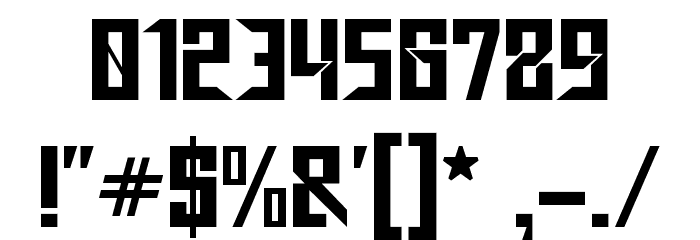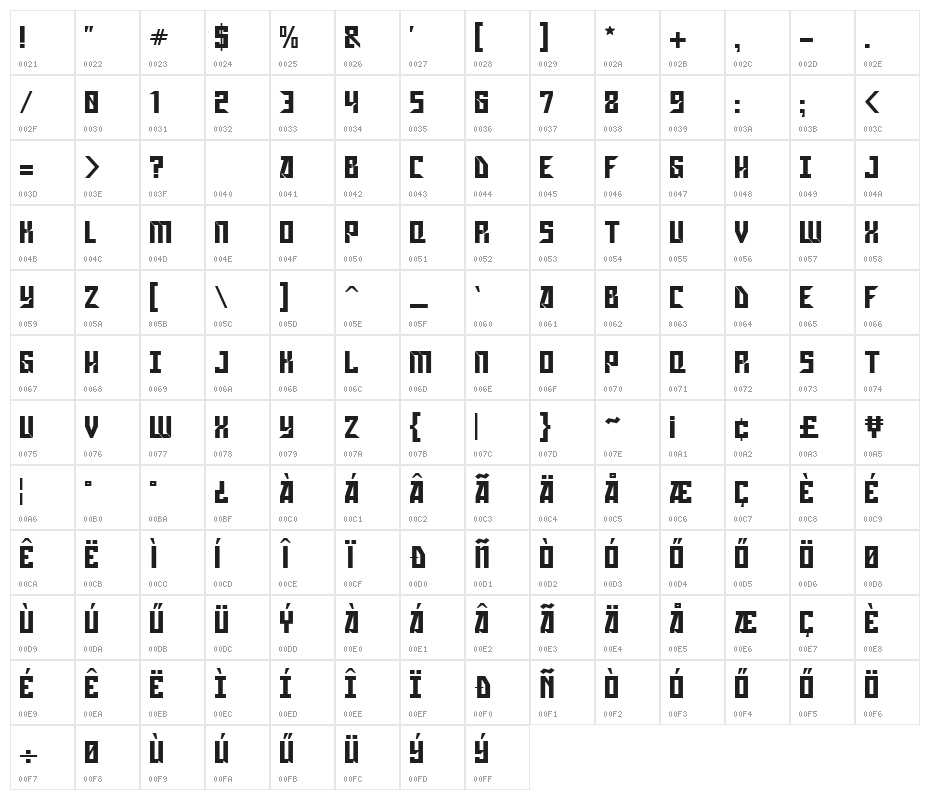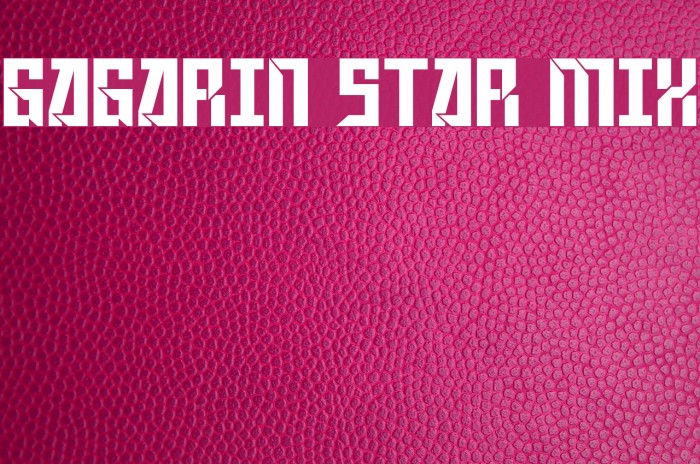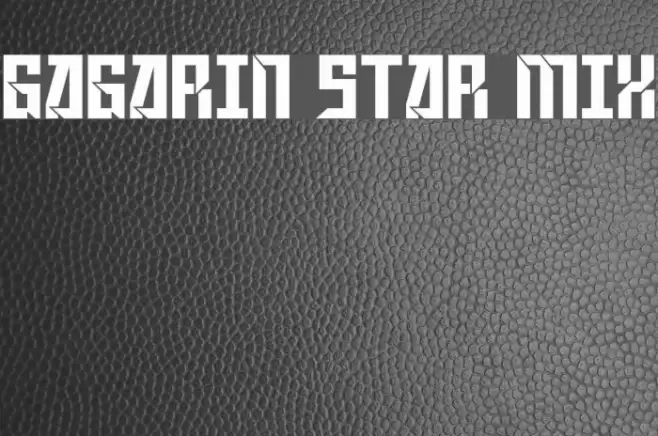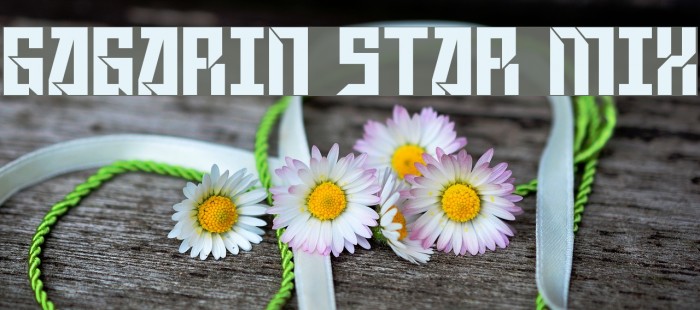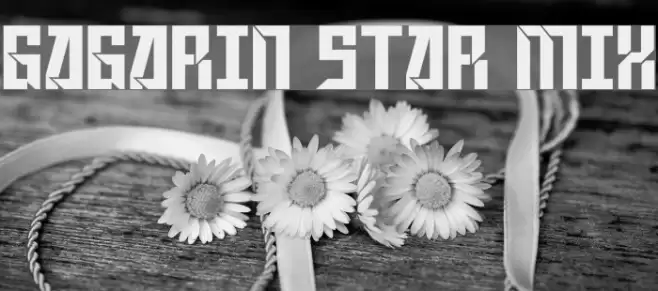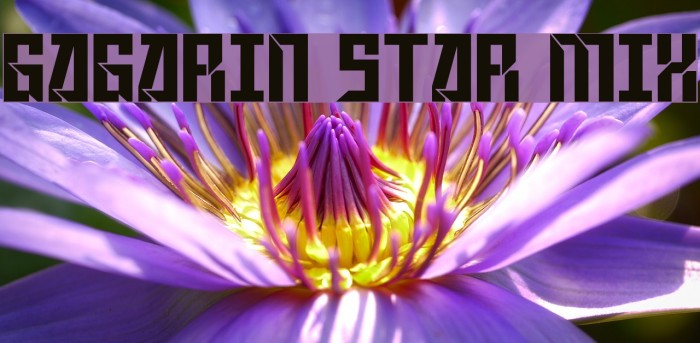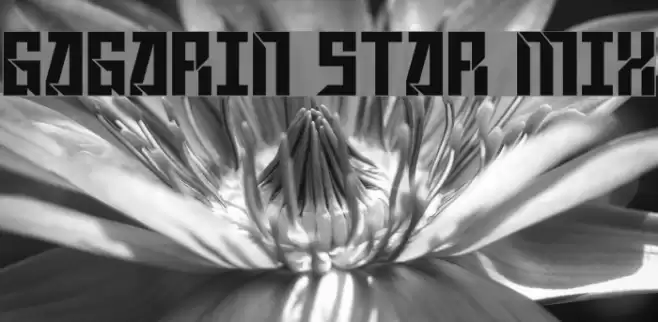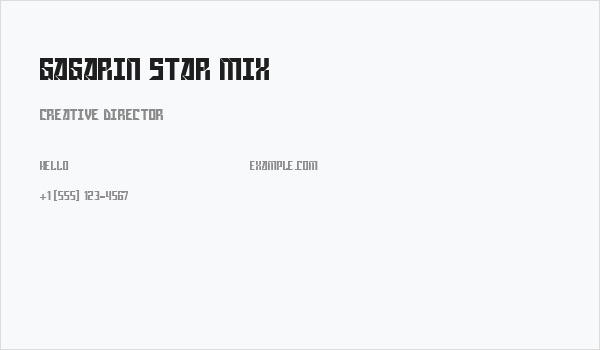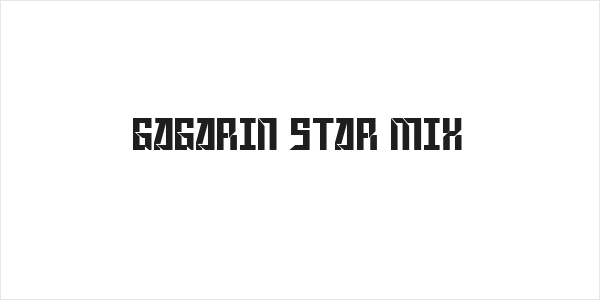
Gagarin Star Mix Font
Gagarin Star Mix Description
This font features a bold, geometric design with sharp angles and a futuristic aesthetic. The characters are constructed with a blocky, angular style that gives a sense of strength and modernity. The uppercase and lowercase letters maintain a consistent design, with unique cuts and slants that add a dynamic feel. The numbers and special characters follow the same bold and angular theme, ensuring a cohesive look across all glyphs. This font is highly stylized, making it ideal for projects that require a strong visual impact.
| Proposed Projects | Ideal for sci-fi themed designs, video game titles, posters, and branding that requires a modern and impactful look. |